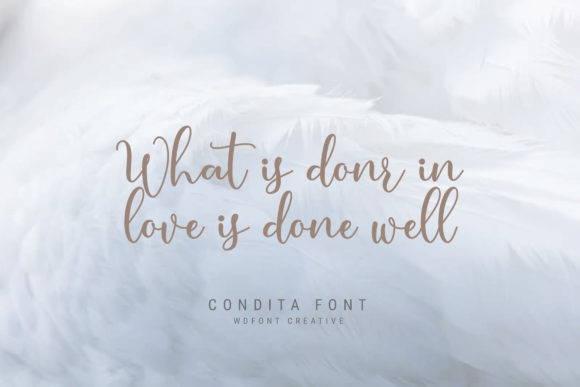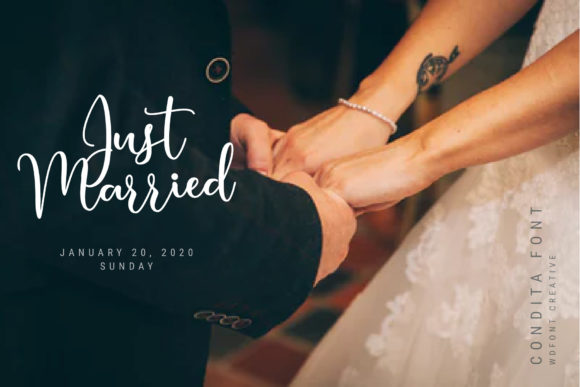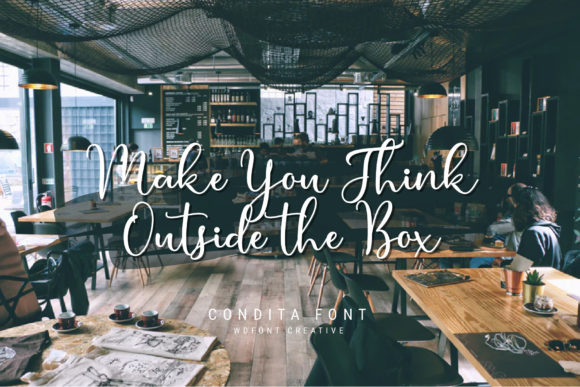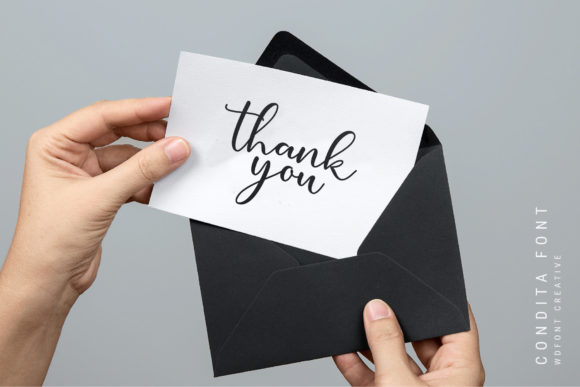
Introducing Condita Font: The Ultimate Choice for Romantic Designs
Are you a designer or crafter looking for a font that can add a touch of romance and elegance to your projects? Look no further than Condita Font! This light and fresh handwritten font is designed to inspire your creativity and bring a sense of whimsy to your designs. With its incredibly romantic feel, Condita Font is the perfect choice for a wide range of projects, from wedding invitations and stationery to branding and packaging.
The Story Behind Condita Font
Condita Font is a carefully crafted font that is designed to evoke a sense of nostalgia and romance. Its unique, handwritten style is reminiscent of traditional calligraphy, but with a modern twist that makes it perfect for contemporary designs. The font is characterized by its light and airy feel, which gives it a fresh and youthful appearance that is sure to capture the attention of your audience.
Key Features of Condita Font
- Light and Fresh Handwritten Style: Condita Font features a light and fresh handwritten style that is perfect for designs that require a touch of elegance and sophistication.
- Incredibly Romantic Feel: With its unique and whimsical style, Condita Font is designed to evoke a sense of romance and nostalgia in your designs.
- Highly Versatile: Condita Font is highly versatile and can be used for a wide range of projects, from wedding invitations and stationery to branding and packaging.
- Easily Readable: Despite its elegant and cursive style, Condita Font is easily readable, making it perfect for designs that require a clear and concise message.
Why Choose Condita Font?
So, why choose Condita Font for your next design project? Here are just a few reasons why this font stands out from the rest:
- Unique and Eye-Catching: Condita Font is a unique and eye-catching font that is sure to capture the attention of your audience.
- Perfect for Romantic Designs: With its incredibly romantic feel, Condita Font is the perfect choice for designs that require a touch of elegance and sophistication.
- High-Quality Design: Condita Font is designed to the highest standards, ensuring that it looks great in any design project.
How to Use Condita Font in Your Designs
Using Condita Font in your designs is easy! Here are a few tips to get you started:
- Pair with Other Fonts: Condita Font pairs well with other fonts, making it easy to create a unique and visually appealing design.
- Use for Headings and Titles: Condita Font is perfect for headings and titles, where its elegant and cursive style can really shine.
- Add a Personal Touch: Use Condita Font to add a personal touch to your designs, whether it’s a wedding invitation or a brand logo.
In conclusion, Condita Font is a beautiful and versatile font that is perfect for designers and crafters looking to add a touch of romance and elegance to their projects. With its light and fresh handwritten style, incredibly romantic feel, and highly versatile design, Condita Font is the ultimate choice for any design project. So why wait? Download Condita Font today and start creating stunning designs that will capture the hearts of your audience!
- What is Condita Font?: Condita Font is a light and fresh handwritten font designed to evoke a sense of romance and elegance in your designs.